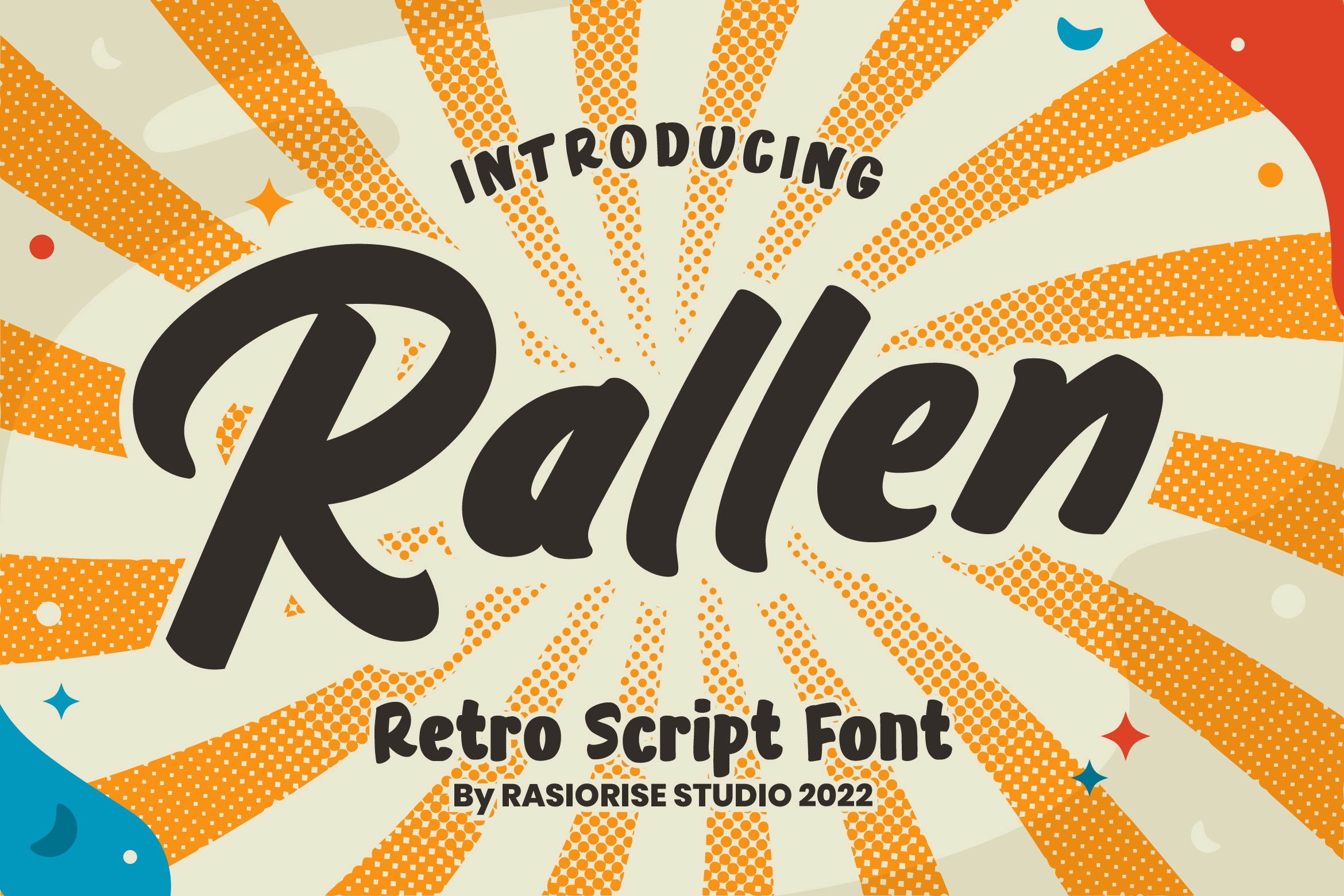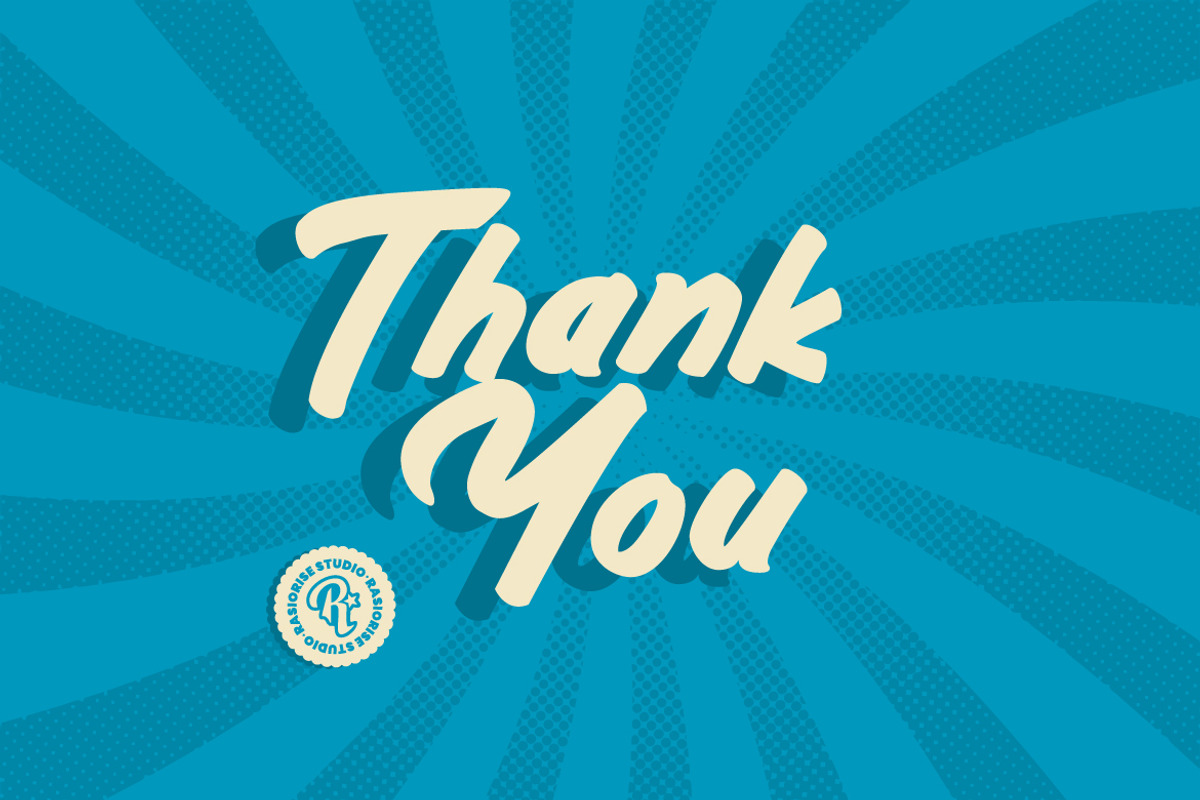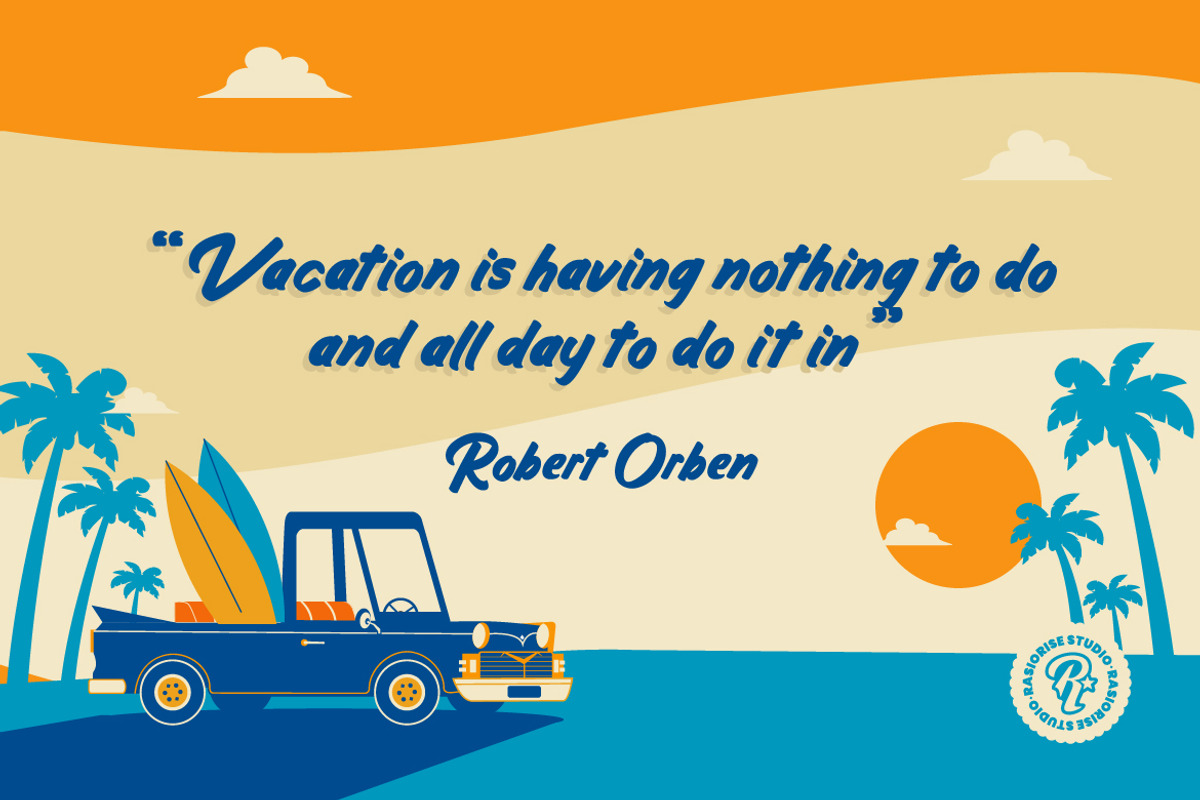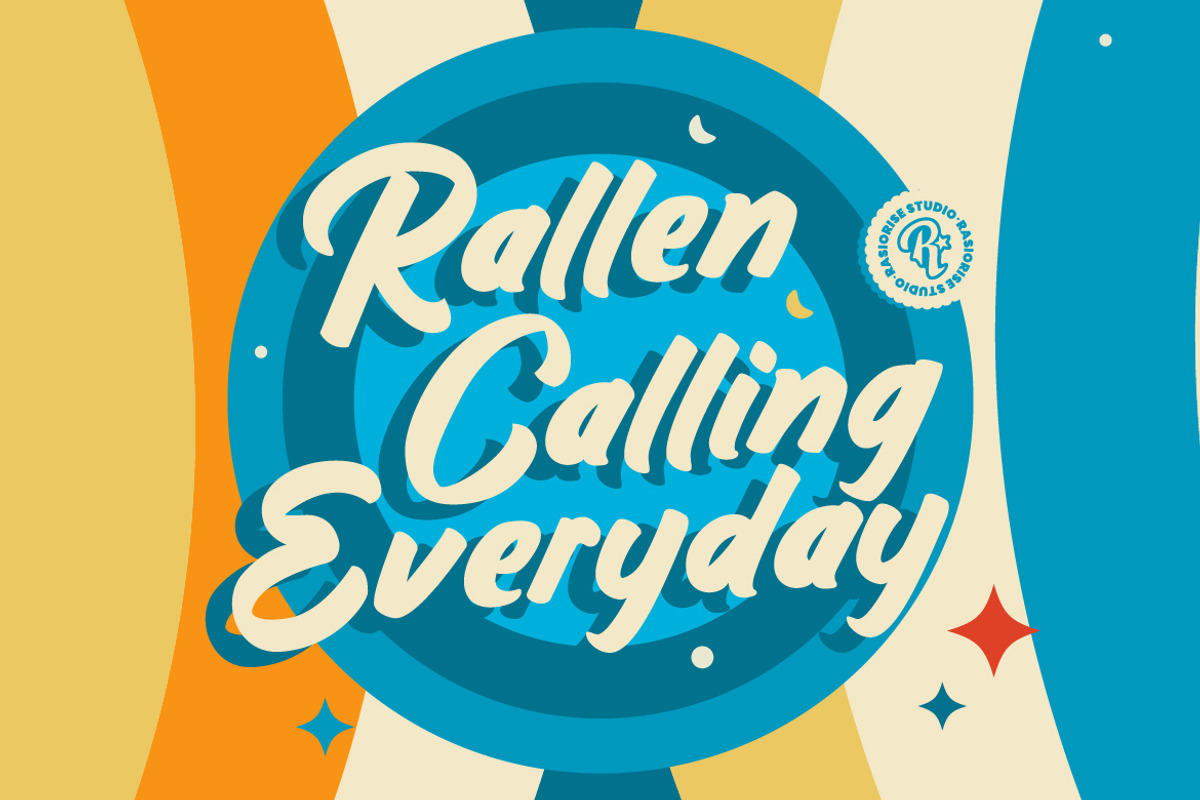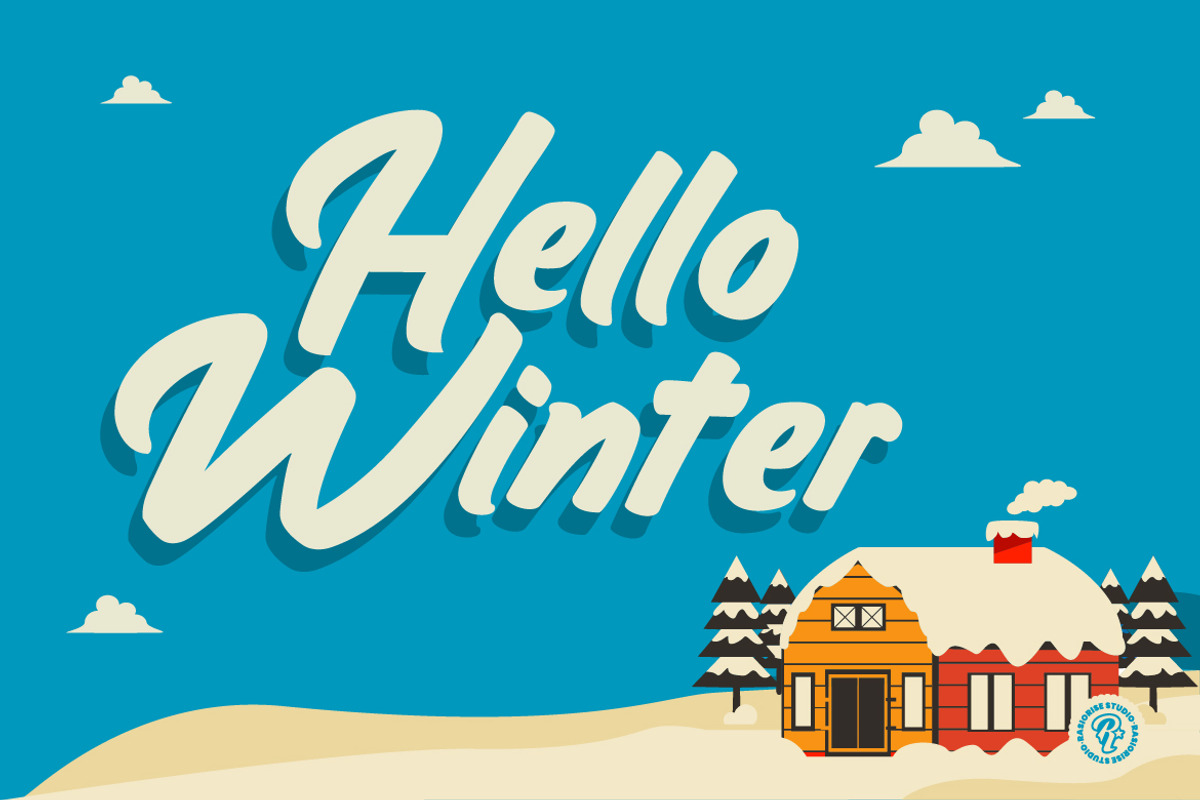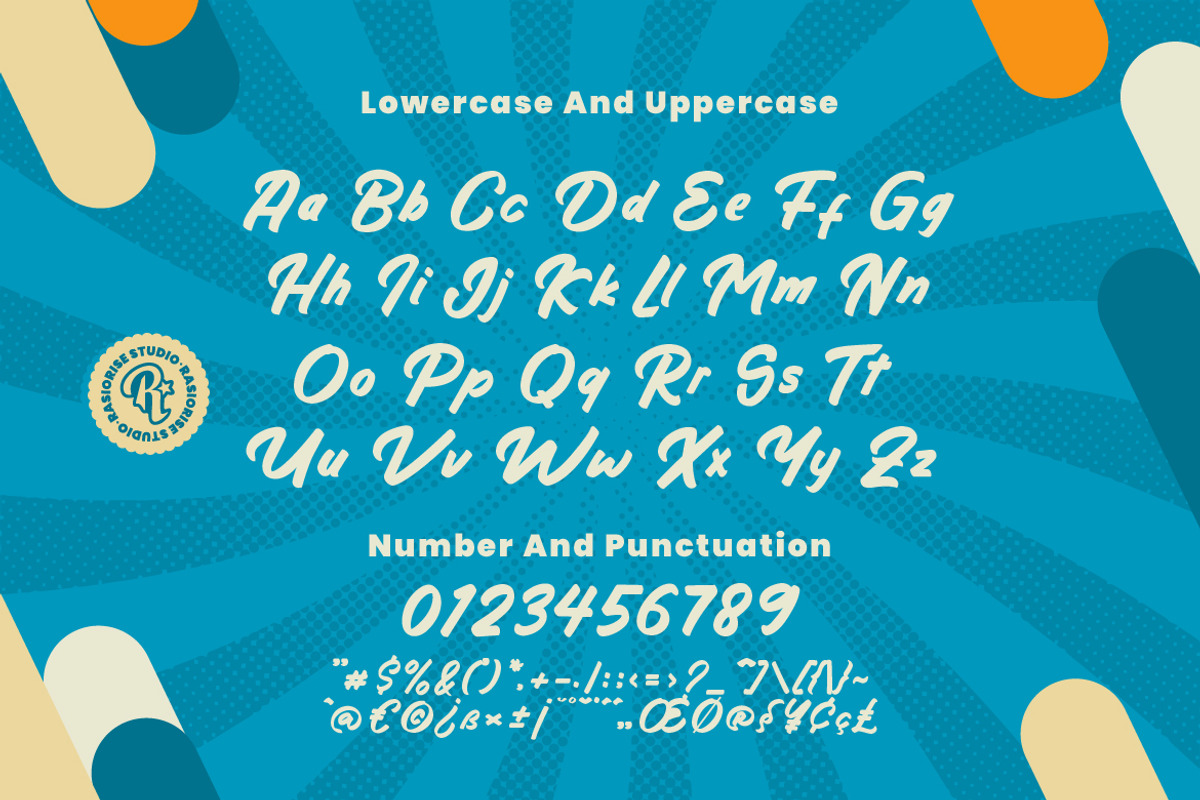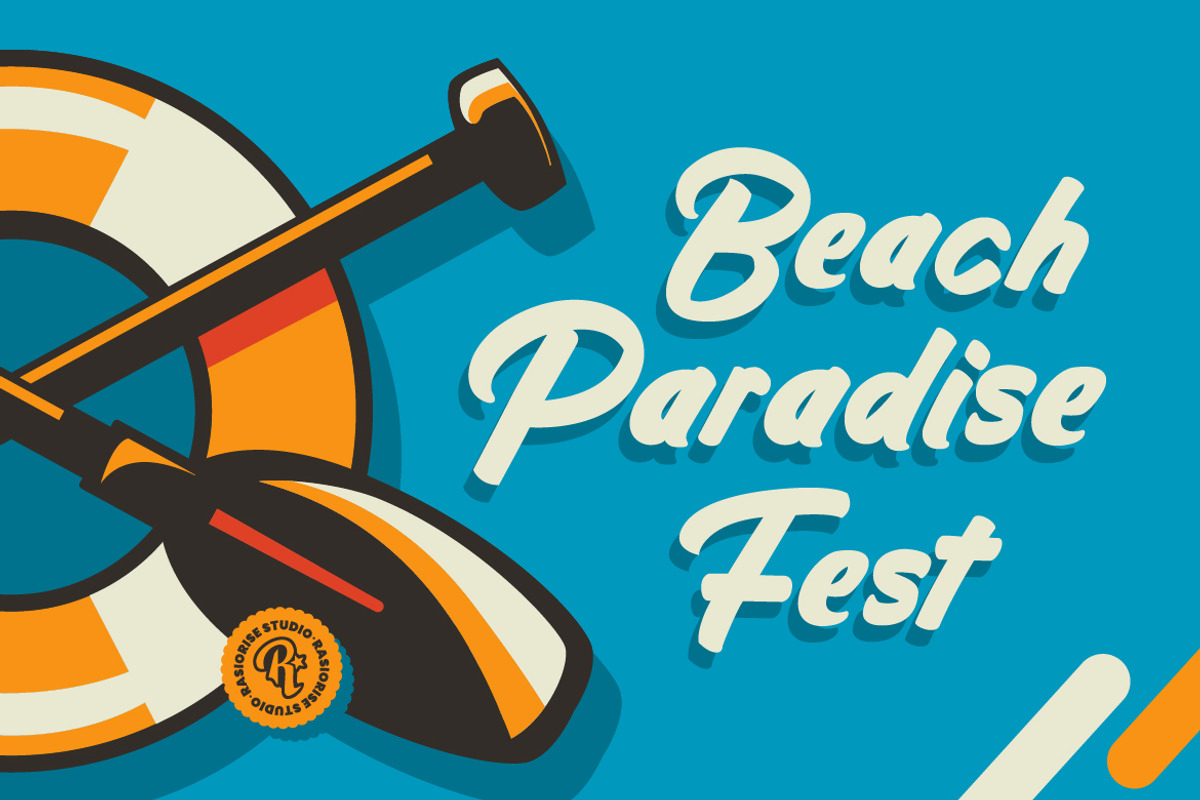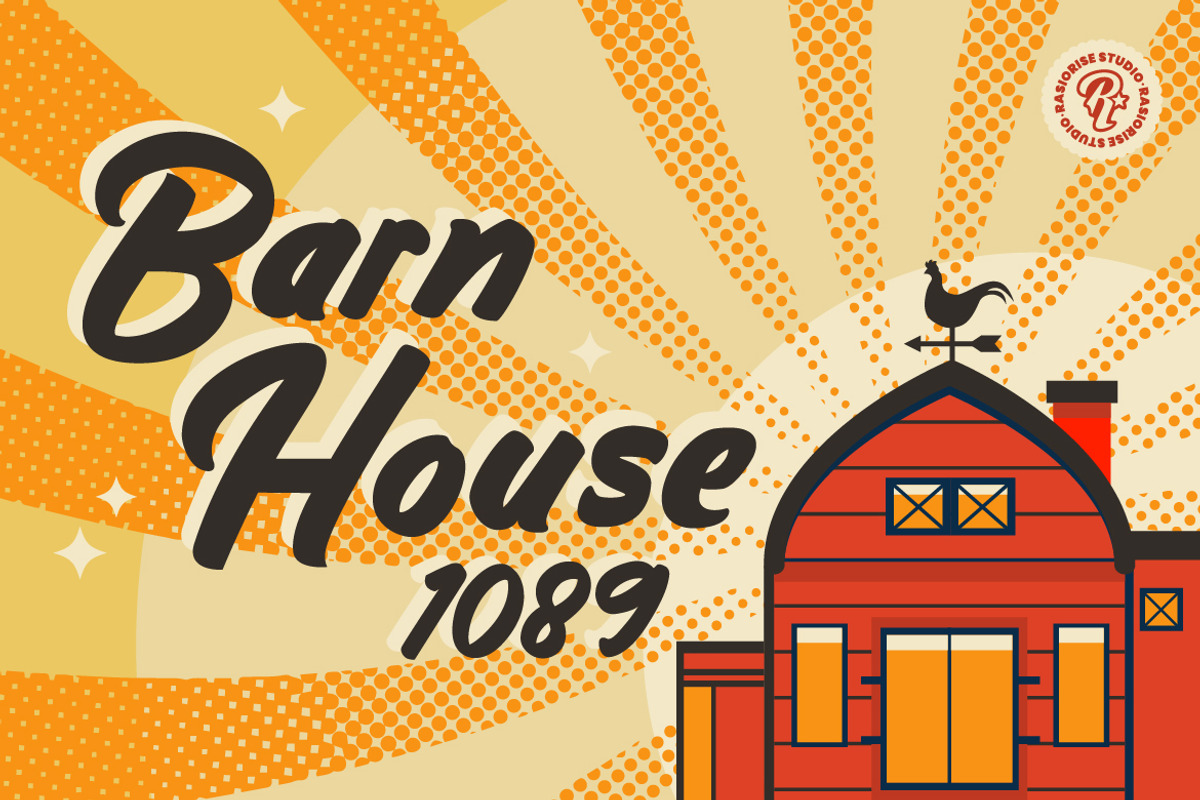
Rallen - Retro Script Font
Hello Everyone! Rallen - Retro Script Font has been released for those of you who are looking for a Script Retro font, The font is inspired by the Retro script hand drawing Free Style with a few combine to turn them into a bit of a classic script cartoon style font. Very suitable for Logotype, Book Cover, Children Book, Comic Text, Poster, Merchandise, Packaging Label, Badge/Emblem Logo and much more.